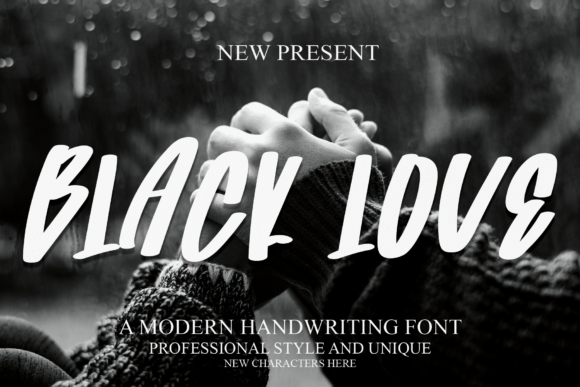
Embark on a typographic journey with Black Love Font, a breathtaking script font that exudes elegance and charm. This modern calligraphy font is the perfect choice for those seeking to add a touch of sophistication and creativity to their designs.
With its thick, flowing letters and captivating curves, Black Love Font adds a touch of luxury and warmth to any project. Whether you're a graphic designer, a social media enthusiast, or a DIY crafter, this font will elevate your designs to new heights.
Express your emotions with the stylish strokes of Black Love Font. Its versatility shines in both digital and print applications, making it an ideal choice for everything from wedding invitations and logos to social media posts and branding materials.
Let your creativity flourish with the endless possibilities of Black Love Font. Its adaptability knows no bounds, whether you're designing brochures, posters, flyers, or even T-shirts. Transform your ideas into stunning visuals that leave a lasting impression.
Black Love Font is not just a font; it's an artistic masterpiece that will captivate your audience and leave them in awe. Its bold presence and timeless appeal make it a must-have for any font collection.
Immerse yourself in the world of Black Love Font and let your imagination run wild. Experience the joy of creating designs that resonate with your audience and leave a lasting impact. Download Black Love Font today and unlock a world of creative possibilities.